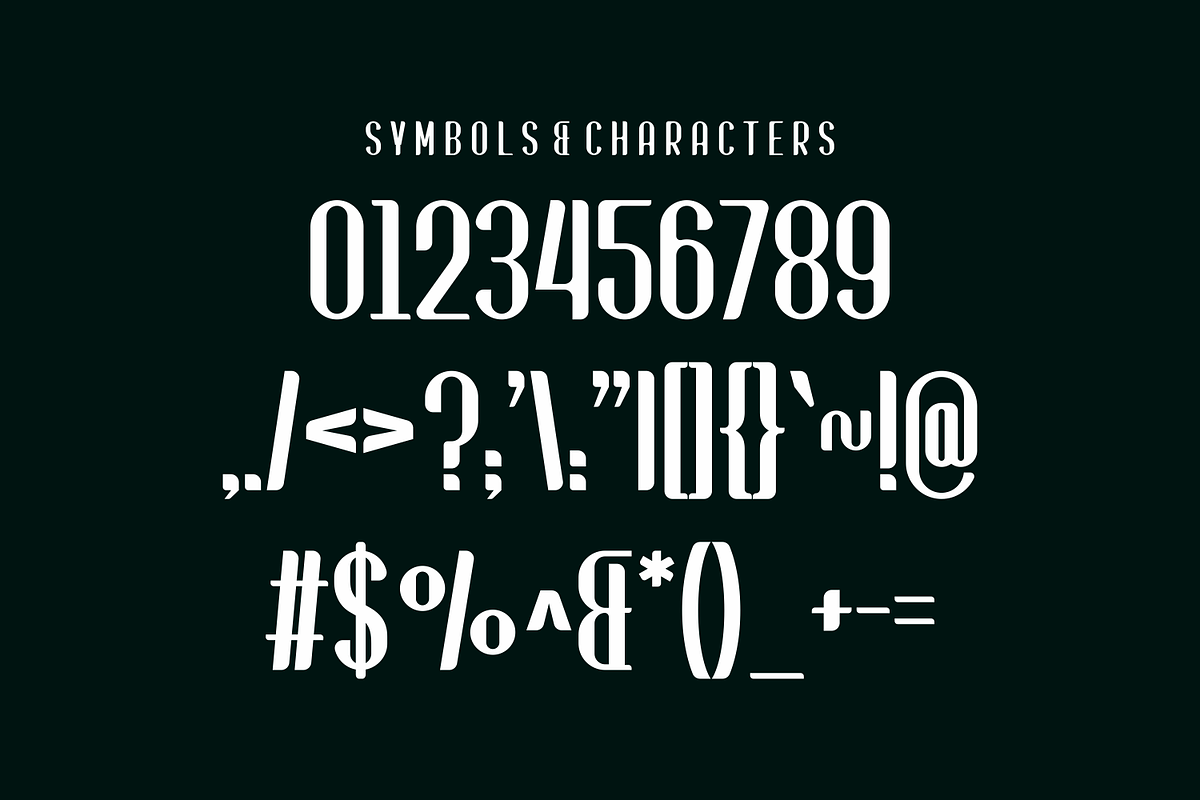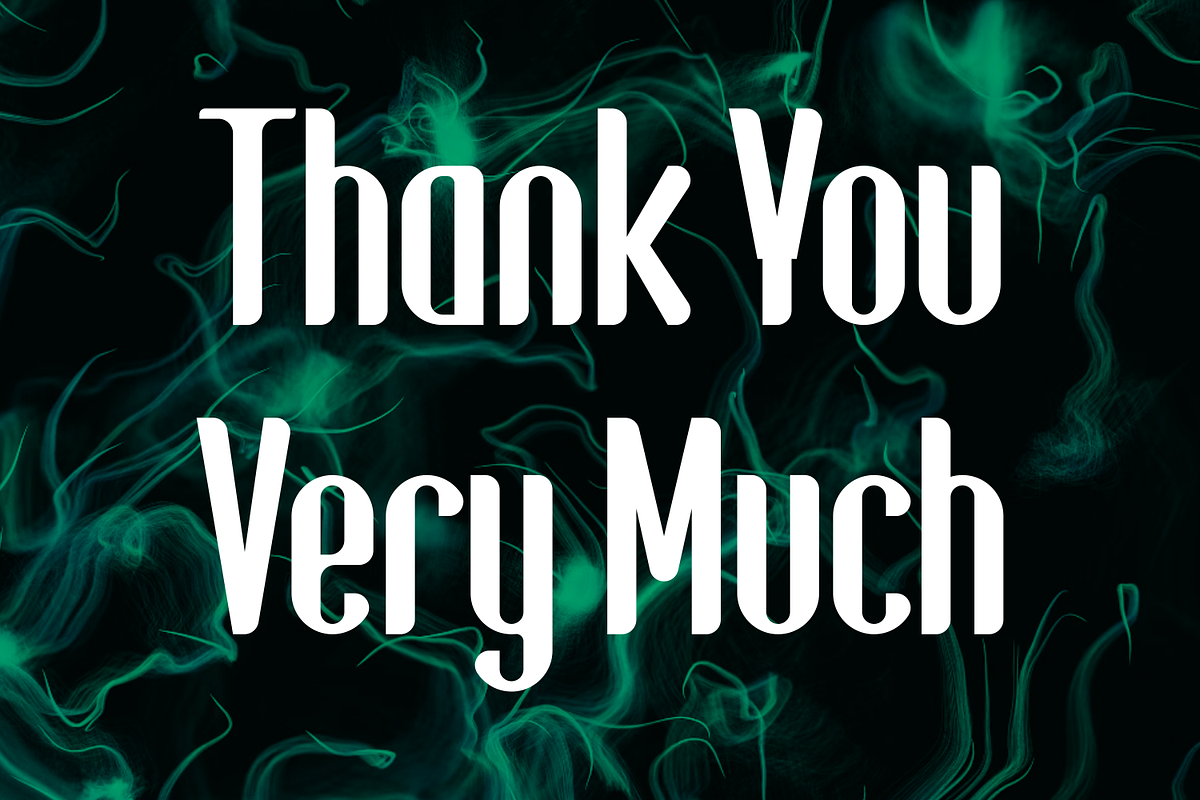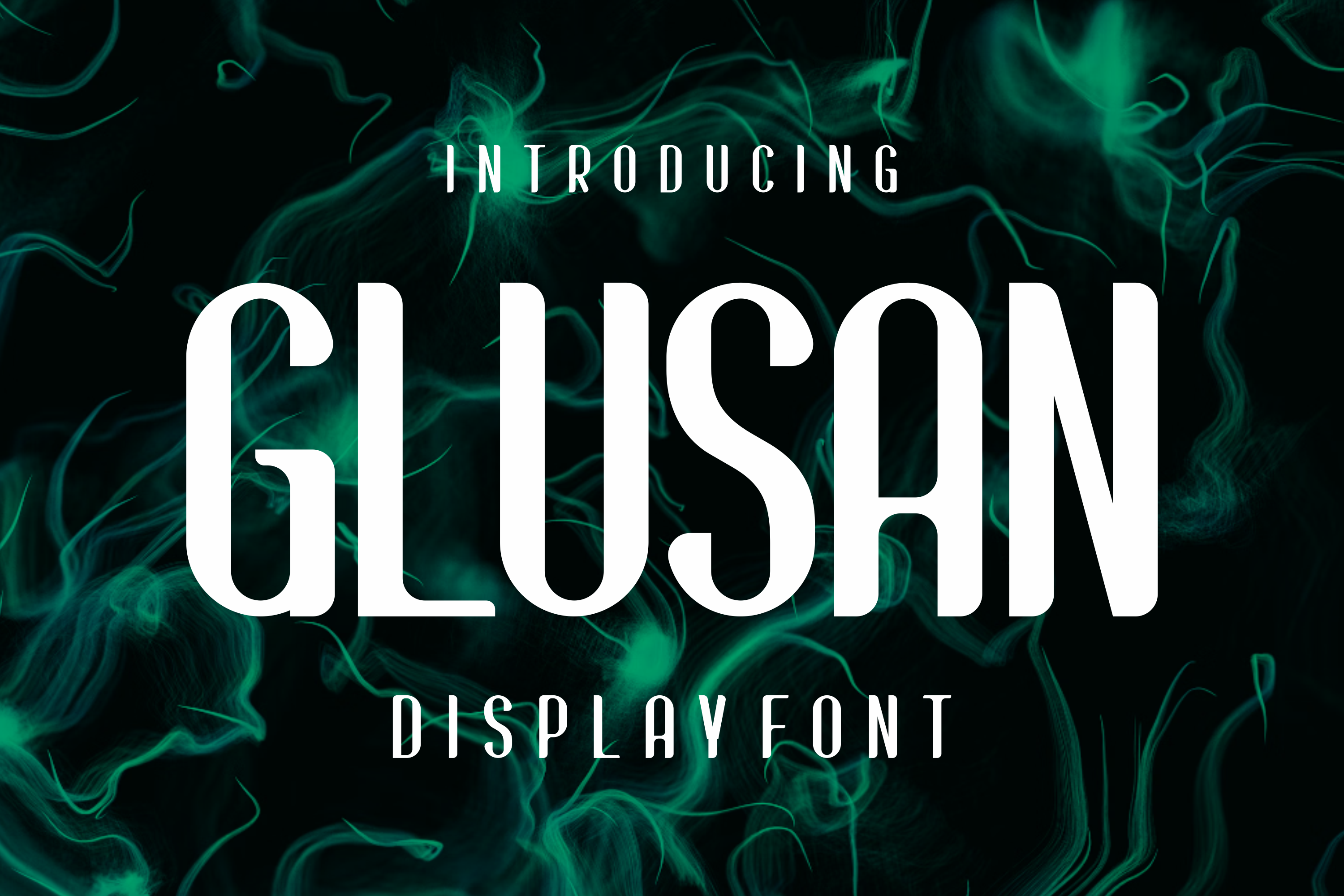
Glusan - Display Font
font name Perfectly suited on print/screen. it’s perfect for Branding, name card, poster, logo, magazine, cover, banner, t-shirt and headers, or even large-scale artwork.